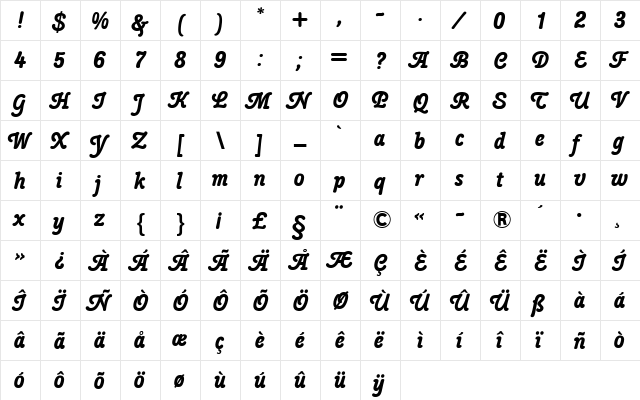
Poppl-College Two BQ Bold Font Preview
Poppl-College Two BQ Bold
Poppl-College Two BQ Bold Font Details
Design Context for Poppl-College Two BQ Typeface
Poppl-College Two BQ brings high-energy athletic personality to the page — its confident, muscular forms are built for impact. The heavy weight commands attention and anchors typographic hierarchies.
A natural choice for gym brands, fantasy sports, jersey lettering, and action-driven headlines.
Font Pairing: Use alongside a condensed or geometric sans for supporting copy — keep the pairing bold, functional, and free of ornament.
Pro Tip: Use Poppl-College Two BQ in all-caps headlines where its athletic energy can fully express itself. Pair with a solid, simple sans for supporting text.